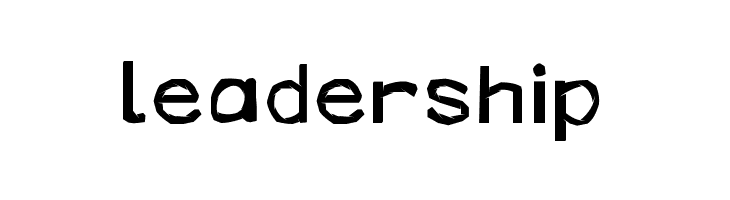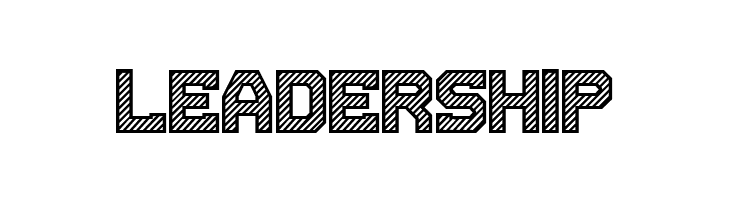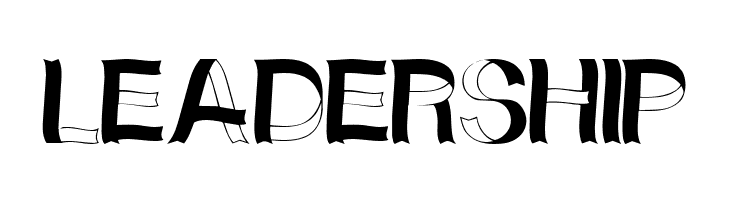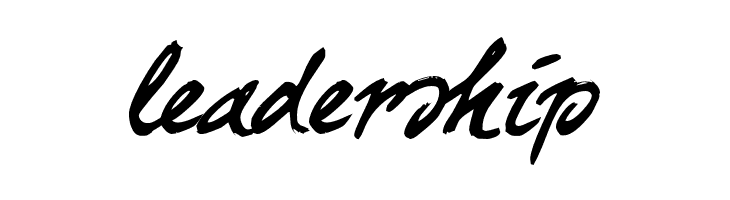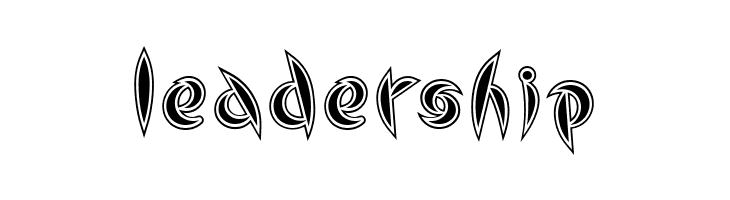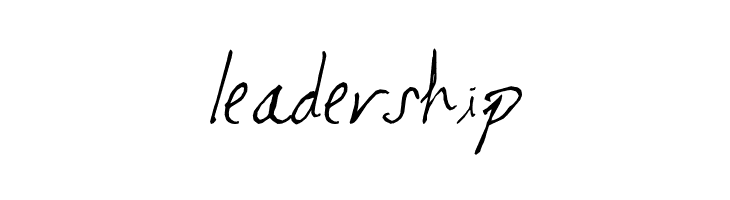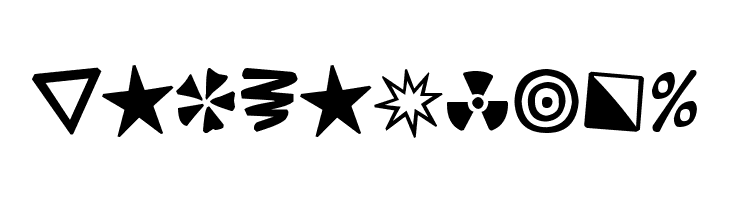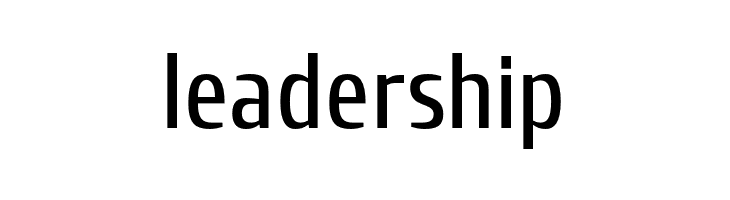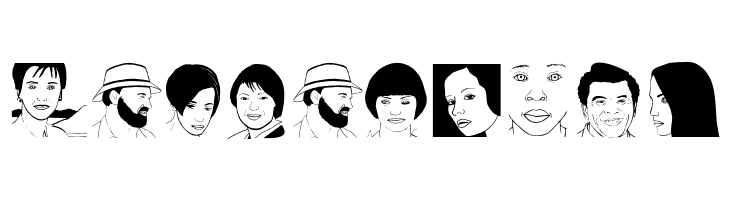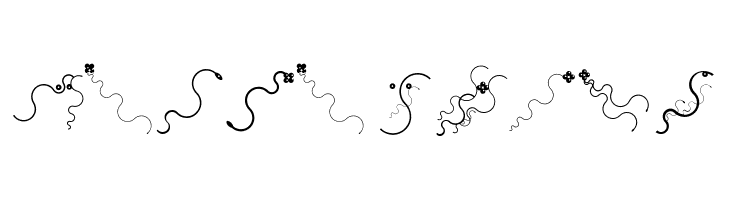
A light, elegant italic font with a modern and sophisticated style.
A bold, angular font with a gothic-inspired design, perfect for dramatic visual impact.
A modern, geometric sans-serif typeface with clean lines and uniform strokes.
A modern, bold sans-serif font with a slightly condensed style.
A modern, bold italic font with smooth strokes and moderate contrast.
A modern, italic sans-serif font with medium contrast and a sleek design.
A modern, clean sans-serif font with a slightly condensed style.
A decorative font with ornate curls and swirls, perfect for artistic projects.
An ornate Art Nouveau font with intricate curves and floral motifs.
A dynamic, expressive script font with a handwritten style.
A playful, curly font with whimsical loops and swirls.
A bold, expressive handwritten font with a playful, brush-like style.
A bold, modern font with clean lines and a slightly condensed style.
A bold, playful set of expressive and dynamic symbols with a comic book style.
Abstract, organic font with wavy lines and playful forms.
A bold, modern font with geometric, rounded characters.
A bold, oblique font with rounded edges and a modern, dynamic style.
A bold, cut-out style font with a handcrafted, artistic look.
A bold, decorative font with a unique cut-out pattern and striped texture.
A narrative, woodcut-style decorative font with each character as a detailed illustration.
A playful, bold font with sharp angles and decorative outlines.
A pixelated, retro-style font with a blocky, digital aesthetic.
A playful, rounded font with smooth curves and a friendly appearance.
A playful, hand-drawn font with irregular strokes and a whimsical style.